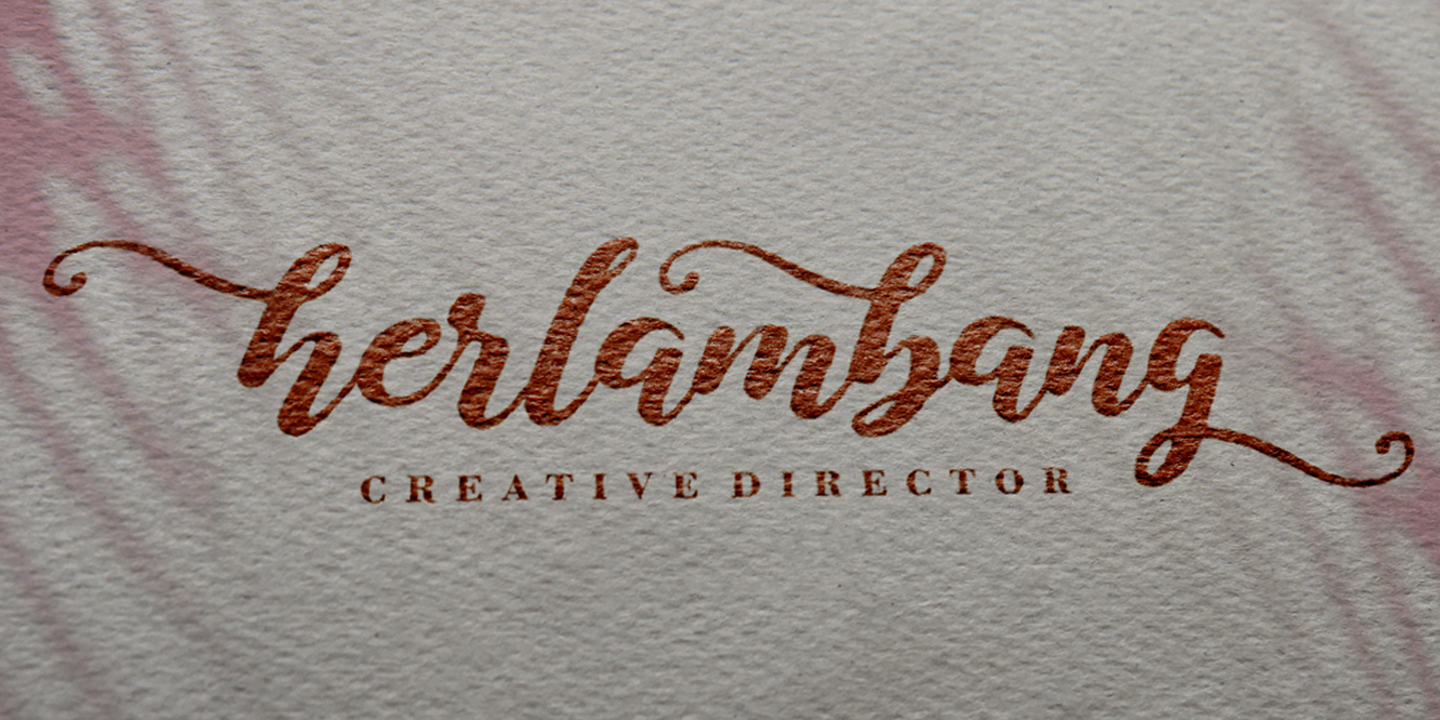
Sabryne Font is perfect for elegant wedding invitations, luxury branding projects, sophisticated fashion magazines, high-end boutique signage, romantic greeting cards, premium beauty product packaging, stylish lifestyle blogs, upscale restaurant menus, exclusive event stationery, and refined social media graphics that require a graceful and sophisticated aesthetic.
What makes Sabryne Font so exciting is its exquisite elegance that perfectly captures the essence of refined sophistication and timeless beauty. This remarkable typeface features flowing letterforms with delicate curves and graceful flourishes that exude luxury and charm. The font's carefully crafted characteristics include elegant swashes and refined details that give your designs an unmistakably sophisticated appearance, making it an ideal choice for designers who want to convey elegance, luxury, and refined taste in their work.
Sabryne Font comes in multiple font families including Regular, Bold, Light, Italic, Bold Italic, Script, Thin, and Ornamental variations. Each family member maintains the distinctive elegant aesthetic while offering different weights and styles to suit various sophisticated design needs. The complete font family provides designers with extensive flexibility for creating cohesive luxury brand identities and diverse typographic hierarchies that maintain their refined appeal.
For designers seeking authentic elegant typography, Sabryne Font Free Download offers an exceptional solution that brings the timeless appeal of sophisticated design and refined aesthetics to modern digital projects. This versatile typeface works beautifully in both large display sizes and smaller text applications, making it suitable for everything from captivating luxury headlines to elegant body text. The font's unique character makes it particularly effective for brands that want to convey sophistication, grace, and premium quality.
Whether you're working on luxury brand campaigns, high-end fashion layouts, wedding planning materials, or sophisticated lifestyle content, Sabryne Font delivers the perfect balance of readability and elegant character. Its distinctive refined design elements help create memorable brand experiences that appeal to discerning audiences seeking sophistication and quality.
The font's versatility extends beyond traditional print applications, working equally well in digital environments where elegant aesthetics are desired. From website headers to social media graphics, Sabryne Font maintains its sophisticated appeal across all media formats, ensuring consistent brand presentation throughout your luxury-focused design projects.